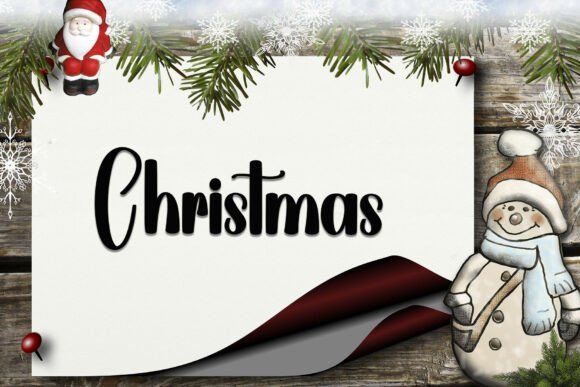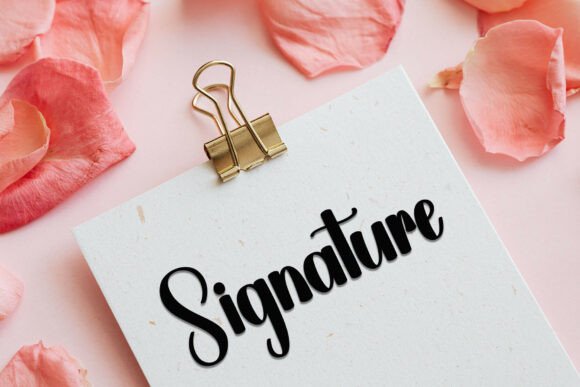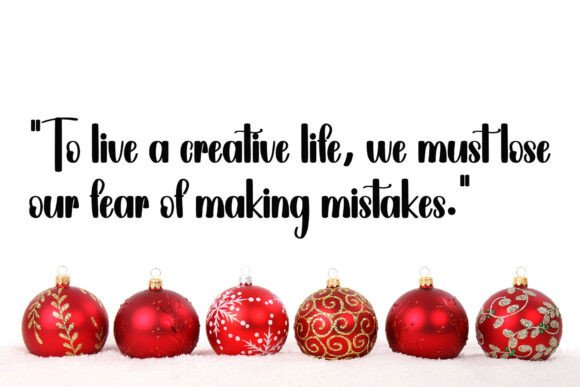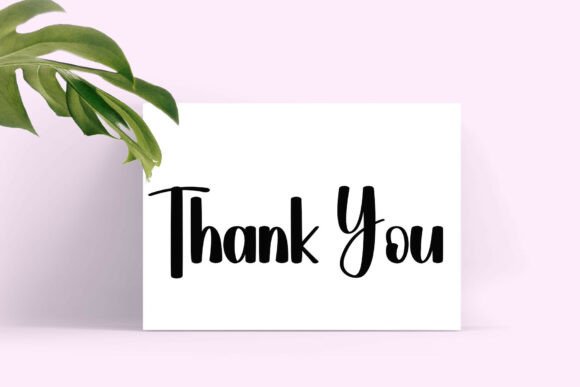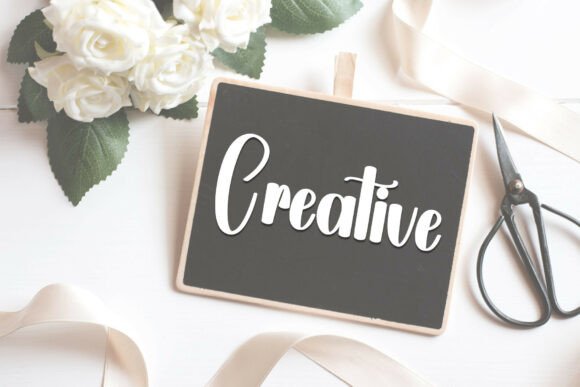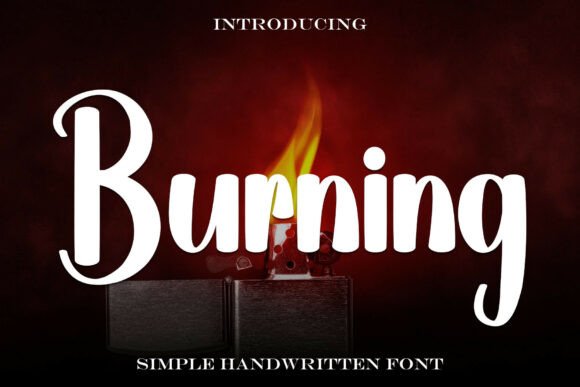
The Burning Font: A Sweet and Elegant Addition to Your Design Arsenal
Have you ever been in the middle of a design project, and suddenly, you just can’t seem to find the right font? I recall a particularly frustrating experience while working on a wedding invitation design. My client wanted something elegant, yet playful, and I was determined to deliver. That’s when I stumbled upon the Burning font, a sweet and cursive handwritten gem that instantly elevated my design.
- ✨ Sweet and elegant: The Burning font has a gentle, cursive feel that’s perfect for adding a touch of romance to your designs.
- ✅ Versatile: This font looks stunning on a variety of design materials, from branding and logos to wedding invitations, greeting cards, and fashion lookbooks.
- 🌈 Joyful and playful: The Burning font has a lighthearted, airy feel that injects a sense of joy into your designs.
- 🤔 Limited use in very formal designs: While the Burning font is elegant, it may not be the best fit for very formal or corporate designs.
- ⚠️ Some letters may require manual kerning: As with any font, you may need to adjust the kerning on certain letters to achieve optimal results.
The Story Behind the Burning Font
The Burning font was designed with the intention of capturing the essence of a romantic, handwritten script. While I couldn’t find any information on the designer’s personal story, it’s clear that their goal was to create a font that’s both elegant and approachable. Whether you’re designing a wedding invitation or a fashion lookbook, the Burning font is sure to add a touch of sophistication and whimsy.
Q: What type of designs is the Burning font best suited for?
A: The Burning font is perfect for designs that require a touch of elegance and romance, such as wedding invitations, greeting cards, and fashion lookbooks.